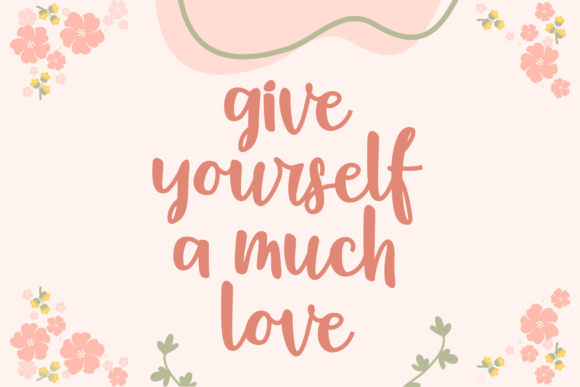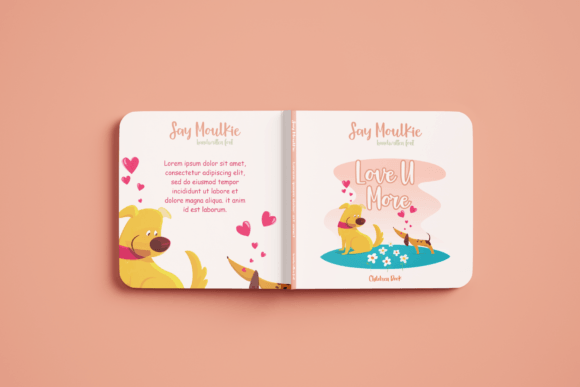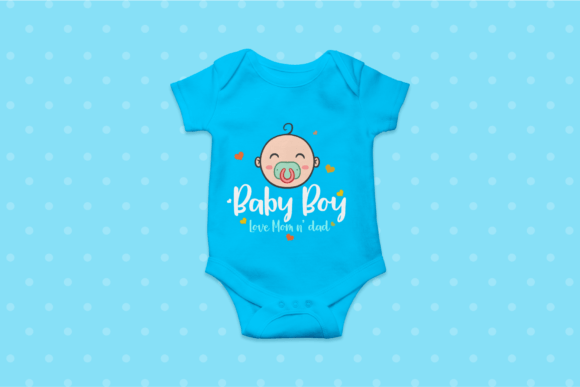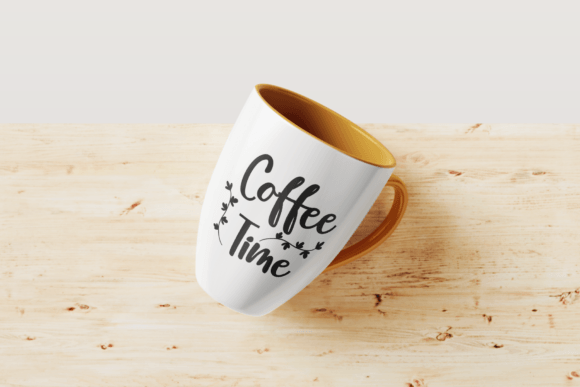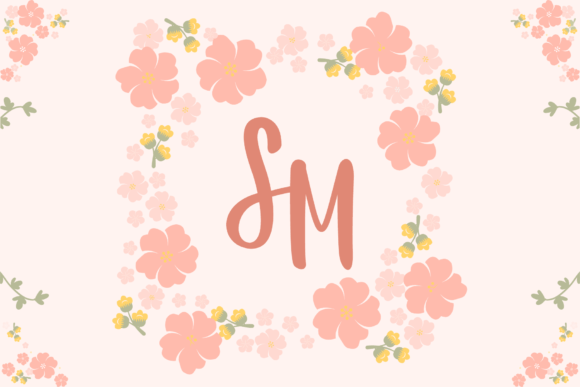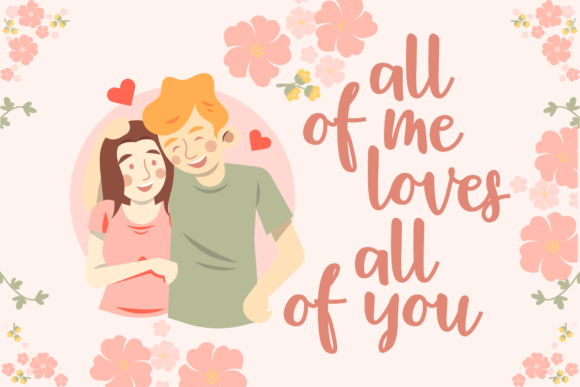
Introduction to Say Moulkie Font Font
Fonts play a crucial role in design, and the Say Moulkie Font font is a typeface that brings both character and versatility to any project. Whether you’re working on a branding project, a website, or a print design, the Say Moulkie Font font offers a unique style that can elevate your work.
Say Moulkie is a captivating handwritten font that exudes warmth and personality.
Its fluid, natural design creates an authentic feel, as if penned directly by human hand The beautifully flowing lines provide an elegant touch while remaining friendly and highly legible.
Key Features of Say Moulkie Font Font
Why Choose Say Moulkie Font Font?
The Say Moulkie Font font is more than just a typeface – it’s a design tool that helps you communicate your message with style and clarity. Its unique character set and versatile design make it suitable for a wide range of applications, from elegant invitations to bold headlines.
With its carefully crafted letterforms and balanced proportions, the Say Moulkie Font font ensures readability and visual appeal across all mediums.
What makes Say Moulkie Font font special?
The Say Moulkie Font font stands out with its unique design, exceptional readability, and versatility across various design applications.